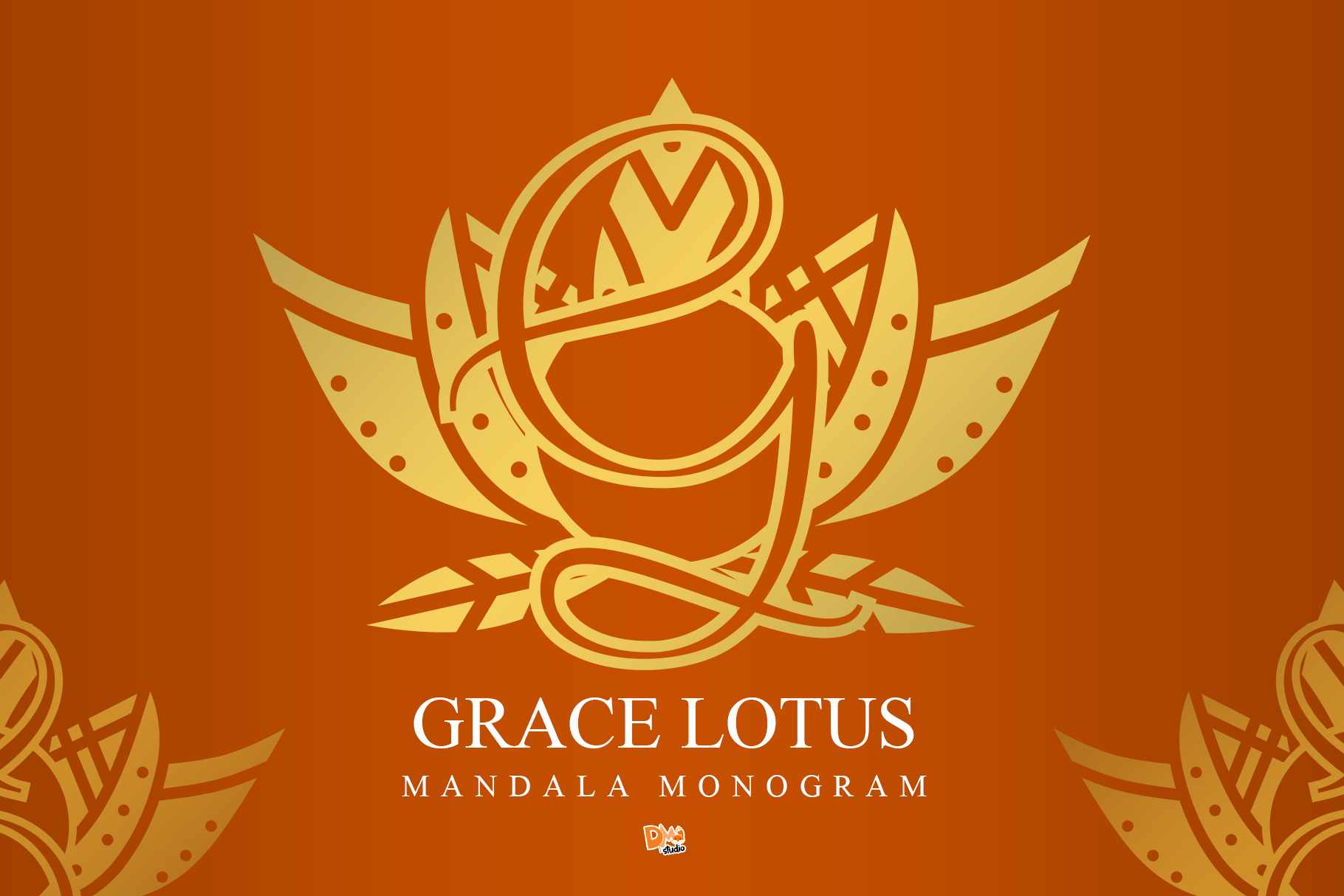
Grace Lotus Mandala Monogram
Grace Lotus Mandala Monogram – Elegant & Spiritual Mandala Monogram Font
Grace Lotus Mandala Monogram is a serene and elegant typeface that blends the spiritual symbolism of the lotus flower with the beauty of mandala-inspired design. Each letter is delicately adorned with symmetrical floral details, making it a perfect choice for wedding stationery, spa branding, spiritual projects, and decorative art.
• Elegant Lotus Mandala Design: Each letter features refined mandala accents inspired by the grace and purity of the lotus flower.
• Perfect for Spiritual & Decorative Use: Great for wellness branding, mindfulness journals, boho wedding invites, and personal logos.
• Intricate & Harmonious Style: Fuses natural floral elegance with spiritual symbolism.
• Full Character Set: Features uppercase, lowercase, numbers, punctuation, and multilingual support.